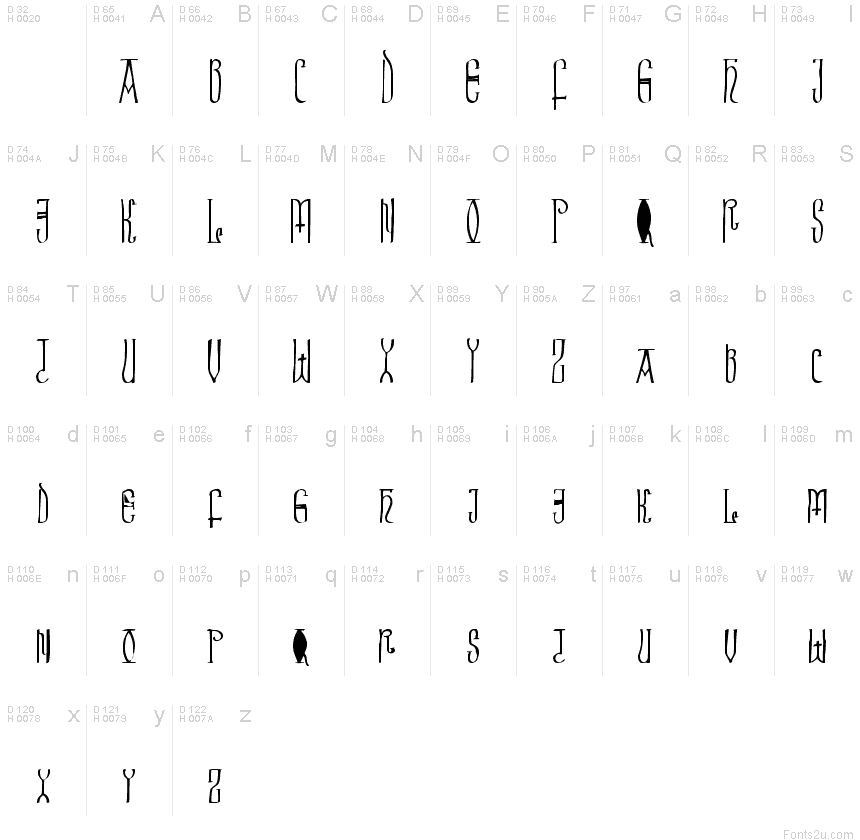
Brigida
Brigida font by David F. Nalle - Scriptorium Fonts is a free gothic typeface with a tall, wiry elegance that feels hand-drawn yet sharply controlled. Its narrow verticals and crooked, branch-like curves give each letter a slightly eerie, storybook quality—like inked titles from an old occult manuscript. The spacing feels deliberately tight, so words form dark, vertical textures that pull the eye in and hold it there.
Using Brigida, your titles gain a moody, theatrical presence that works beautifully for book covers, dark fantasy posters, band logos, tarot or occult branding, gothic event flyers, and mysterious packaging. This free font shines at larger sizes, where its quirky line work and angular rhythm can really breathe; pair it with a clean, understated sans serif for body text to keep layouts readable while Brigida does the atmospheric heavy lifting.